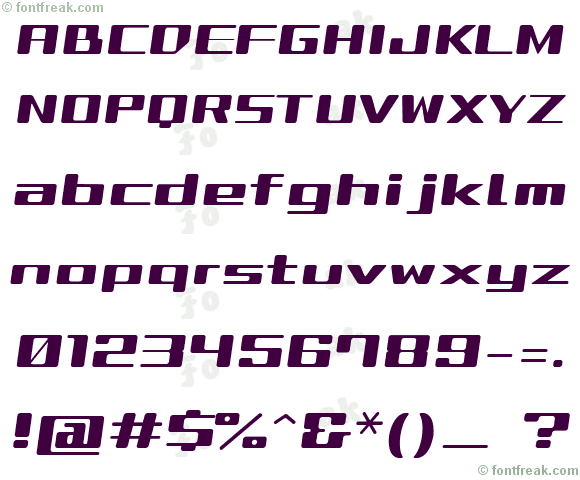
GauFontOverDrive
About GauFontOverDrive
GauFontOverDrive, created by GRAPHIC ARTS UNIT in April 2001, is a striking display font that captures attention with its bold and modern aesthetic. This sans-serif typeface is characterized by its clean lines and distinctive geometric shapes, making it a versatile choice for various design projects. The stroke weight is consistent, providing a sense of balance, while the moderate contrast between thick and thin parts adds visual interest. The spacing between characters is well-considered, ensuring legibility even at larger sizes, which is crucial for impactful designs.
This font is particularly well-suited for use in high-visibility contexts such as movie posters, where its strong visual presence can draw audiences in. Additionally, it works excellently for branding purposes, giving logos and promotional materials a contemporary edge. GauFontOverDrive is also a great choice for restaurant menus, adding a modern flair that can elevate the dining experience. Graphic designers and content creators will find it an invaluable asset for creating eye-catching social media graphics and website headings as well.
What sets the GauFontOverDrive font apart is its ability to blend modernity with versatility, making it an ideal choice for designers seeking to make a bold statement. Whether used for digital or print applications, this font allows for creativity without limits, making it a go-to option for anyone in need of a striking typeface. For those interested, the GauFontOverDrive font free download is readily available, inviting all to experience its unique charm.